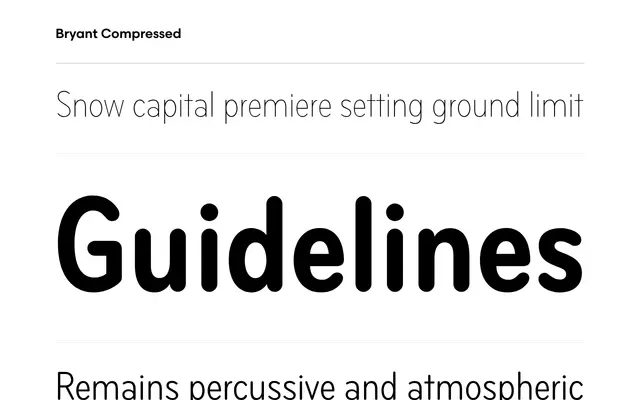
Bryant Compressed
Process Type Foundry · Eric Olson · 2005
The narrowest width of Eric Olson's Bryant family, engineered for high letter counts at large sizes without losing the face's characteristic warmth.
Bryant Compressed uses sharp stem joins and increased stroke contrast to distinguish itself from the other Bryant widths, allowing the typeface to remain readable and warm even at tight settings. Released in 2005 alongside the broader Bryant family, it comes in four weights and includes OpenType features such as arrows and stylistic alternates. It suits editorial headlines, posters and any layout where space is constrained but personality still matters.
Bryant Compressed is a narrow geometric sans-serif with increased stroke contrast and sharp stem joins, departing slightly from a pure geometric model to preserve warmth at compressed widths.